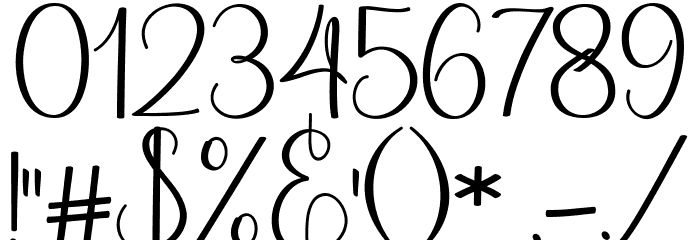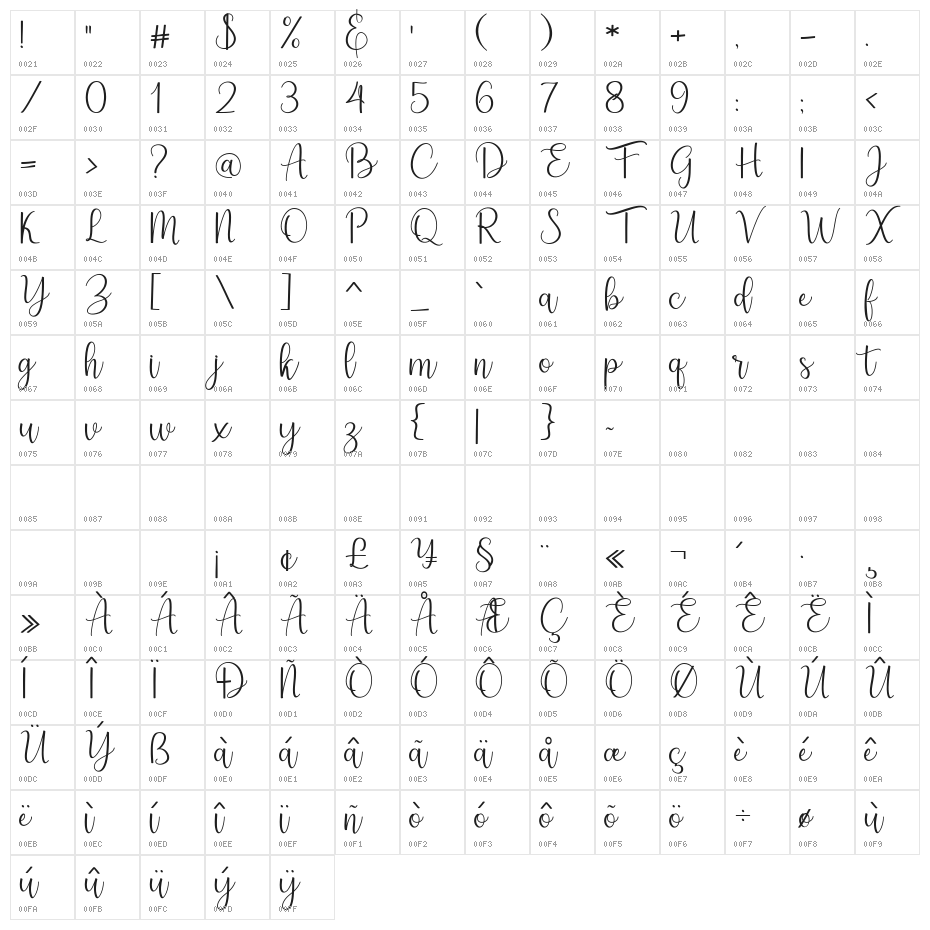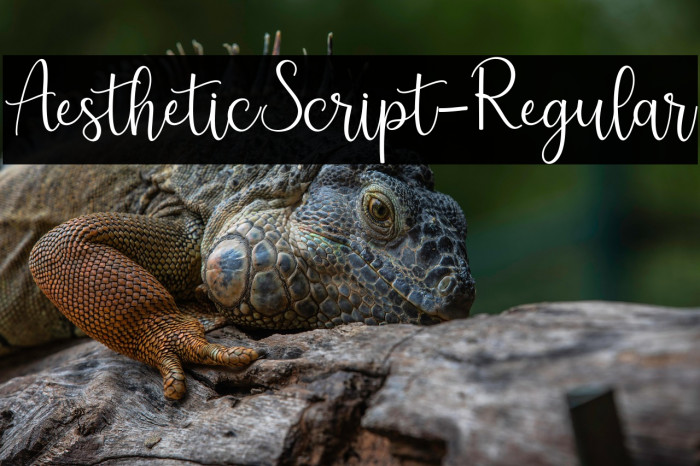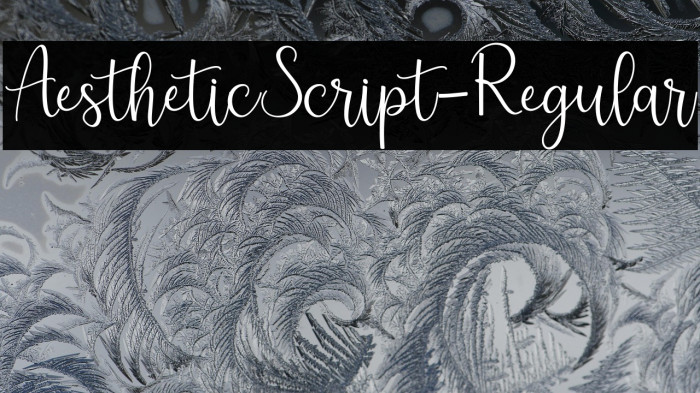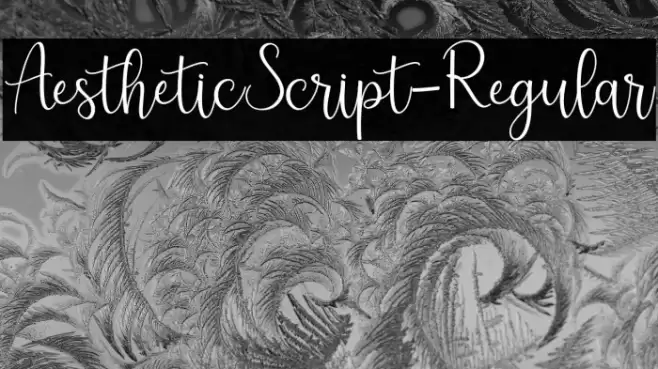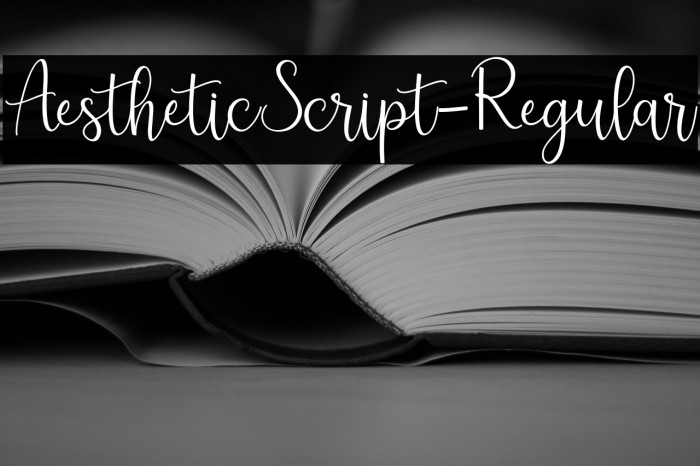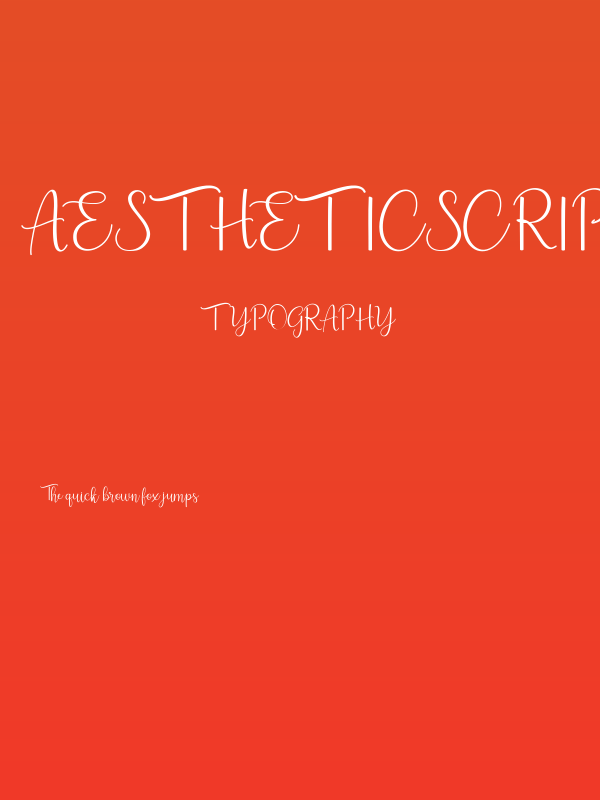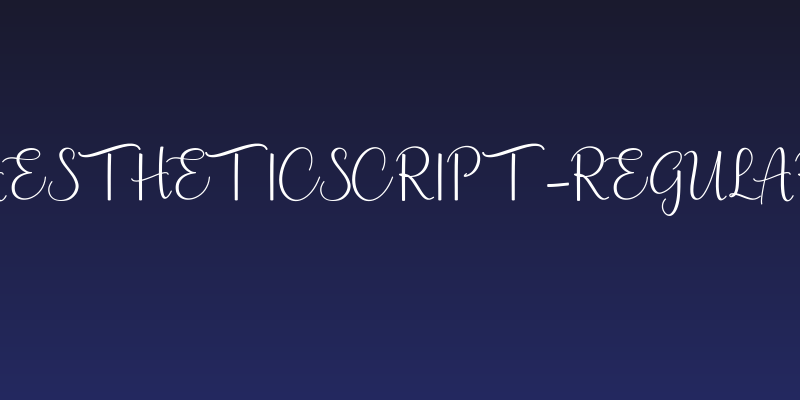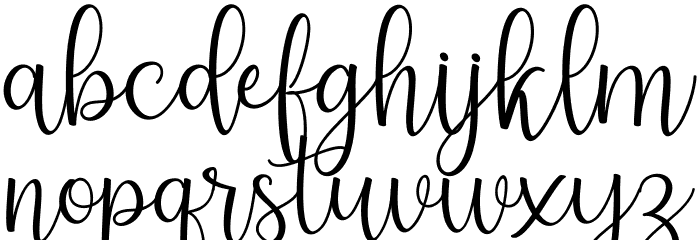
AestheticScript-Regular Font
AestheticScript-Regular Description
This font exudes elegance and fluidity, characterized by its smooth, flowing script style. The uppercase letters are tall and graceful, with gentle curves and loops that add a touch of sophistication. The lowercase letters maintain a consistent flow, creating a harmonious and connected appearance. The numerals are stylish and complement the overall aesthetic, while the special characters are thoughtfully designed to match the script's elegance. This font is perfect for projects that require a personal, handwritten touch, such as invitations, greeting cards, and branding materials.
| Proposed Projects | Ideal for wedding invitations, personal branding, greeting cards, and elegant packaging. |